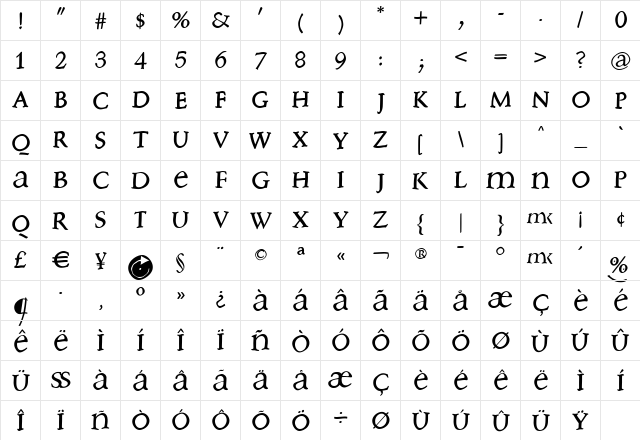
FreeBradbury Regular
Design Context for FreeBradbury Typeface
FreeBradbury is a composed and adaptable typeface that performs quietly and consistently across a wide range of design contexts.